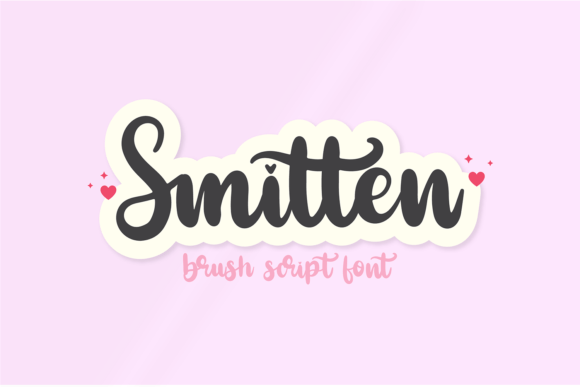
Smitten Font: The Perfect SMITTEN Bold Brush Script for Valentine’s Day
Are you looking for a unique and beautiful font to make your Valentine’s Day projects stand out? Look no further than the Smitten font, a stunning SMITTEN bold brush script Valentine’s Day font designed specifically for your Valentine’s and wedding projects. In this article, we’ll dive into the details of this gorgeous font, explore its features, and discuss how you can use it to create amazing Valentine’s cards, crafts, invitations, and more!
What is Smitten Font?
The Smitten font is a beautiful, hand-crafted bold brush script font, designed with love and care to bring a touch of romance and elegance to your Valentine’s Day and wedding projects. This font was made specifically for creative designers, crafters, and DIY enthusiasts who want to add a personal touch to their projects.
- Unique and Hand-crafted: The Smitten font is a one-of-a-kind, hand-crafted font, designed to give your projects a personal and distinctive touch.
- Bold Brush Script: This font features a bold, brush script style that’s perfect for creating eye-catching and romantic designs.
- Valentine’s Day and Wedding Ready: The Smitten font is specifically designed for Valentine’s Day and wedding projects, making it the perfect choice for your holiday and wedding-themed designs.
How to Use Smitten Font in Your Projects
The Smitten font is an incredibly versatile font that can be used in a wide range of projects, including:
- Valentine’s Cards: Create beautiful and unique Valentine’s Day cards for your loved ones using the Smitten font.
- Crafts and Decor: Use the Smitten font to add a personal touch to your Valentine’s Day crafts and decor, such as garlands, banners, and more.
- Invitations: Make your wedding or Valentine’s Day invitations stand out with the Smitten font.
- Social Media Graphics: Use the Smitten font to create stunning social media graphics, such as Valentine’s Day-themed posts and stories.
- Digital and Printable Art: Create beautiful digital and printable art, such as wall art, gift tags, and more, using the Smitten font.
Benefits and Advantages of Using Smitten Font
So, why choose the Smitten font for your Valentine’s Day and wedding projects? Here are just a few benefits and advantages of using this amazing font:
- Unique and Exclusive: The Smitten font is a one-of-a-kind font that will make your projects stand out from the crowd.
- High-Quality Design: The Smitten font is designed with high-quality and attention to detail, ensuring that your projects look professional and polished.
Tips and Inspiration for Using Smitten Font
Here are a few tips and inspiration to get you started with using the Smitten font in your projects:
- Experiment with Colors: Try pairing the Smitten font with different colors and textures to create unique and eye-catching designs.
- Add Decorative Elements: Add decorative elements, such as hearts, flowers, and more, to make your designs more festive and fun.
- Mix and Match Fonts: Try mixing and matching the Smitten font with other fonts to create interesting and dynamic designs.
- Get Creative with Digital and Printable Art: Use the Smitten font to create stunning digital and printable art, such as wall art, gift tags, and more.
In conclusion, the Smitten font is a beautiful and unique SMITTEN bold brush script Valentine’s Day font that’s perfect for your Valentine’s Day and wedding projects. With its hand-crafted design, bold brush script style, and versatility, this font is sure to make your projects stand out. Whether you’re a designer, crafter, or DIY enthusiast, the Smitten font is a must-have for anyone looking to add a touch of romance and elegance to their projects.